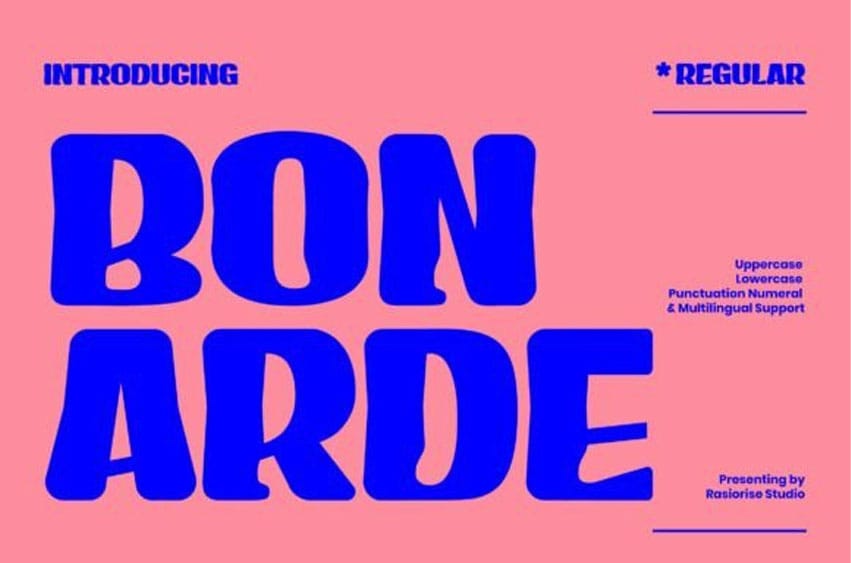
Bonarde Font is an extremely bold, ultra-chunky display sans-serif font with a strong, playful, and graphic presence. Its massive, rounded letterforms fill space aggressively, making it ideal for high-impact headlines and branding.
The typeface offers uppercase, lowercase, punctuation, numerals, and multilingual support. This font is perfect for vibrant posters, contemporary logos, apparel design, and any project that requires a fun, loud, and unforgettable visual statement.